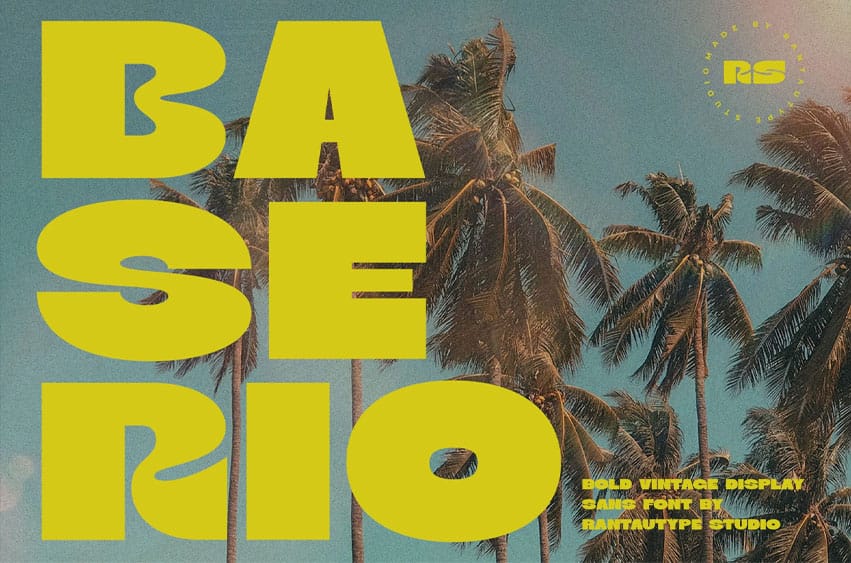
Baserio Font is a new tropical vintage sans serif font inspired by a strong and bold shape. Baserio is a perfect choice for any creative endeavor, chic, lifestyle design such as logotype, advertisements, watermark on photography, stationery, branding projects, display and magazines, invitations, corporate brands, product designs, labels, business projects, and many other projects with a modern touch.